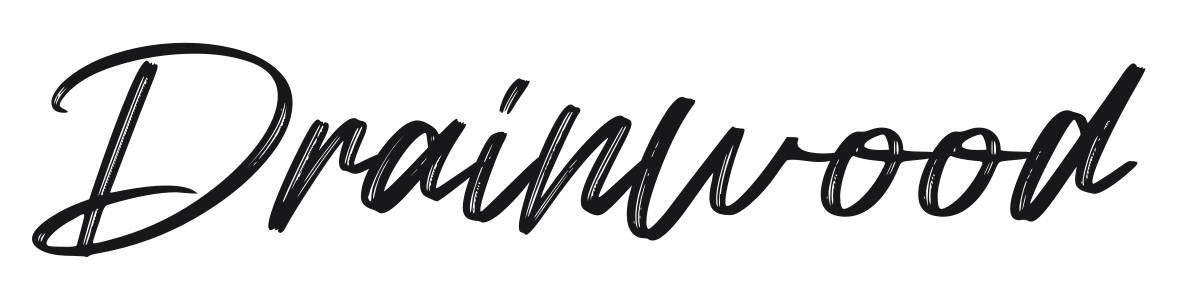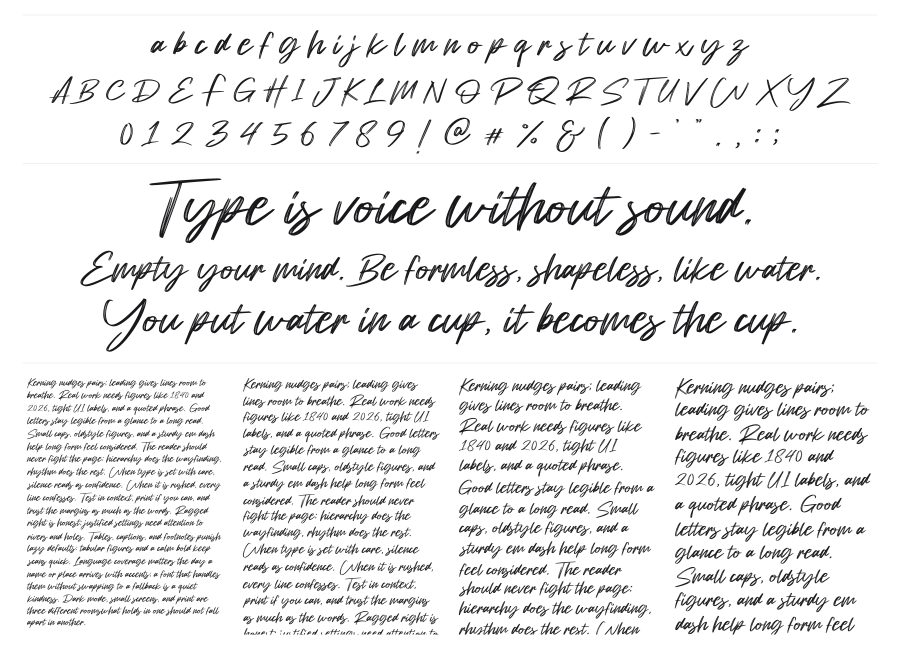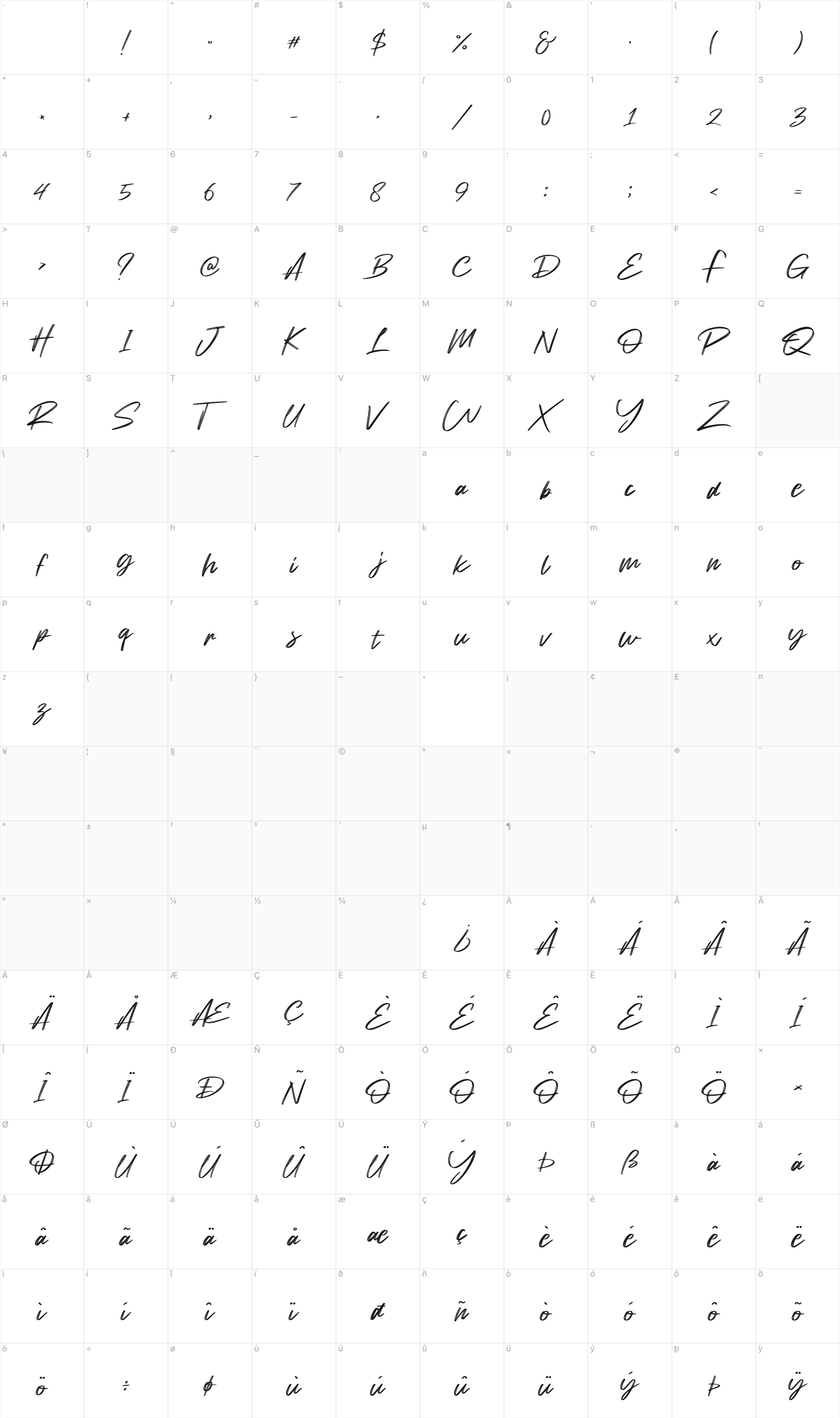
Drainwood
Drainwood is a casual brush script with a rough, inked texture that feels genuinely hand-drawn rather than polished. Sweeping ascenders and generous descenders give each line of text a lively, unrestrained rhythm. It works well wherever a handcrafted, unpretentious personality is needed.